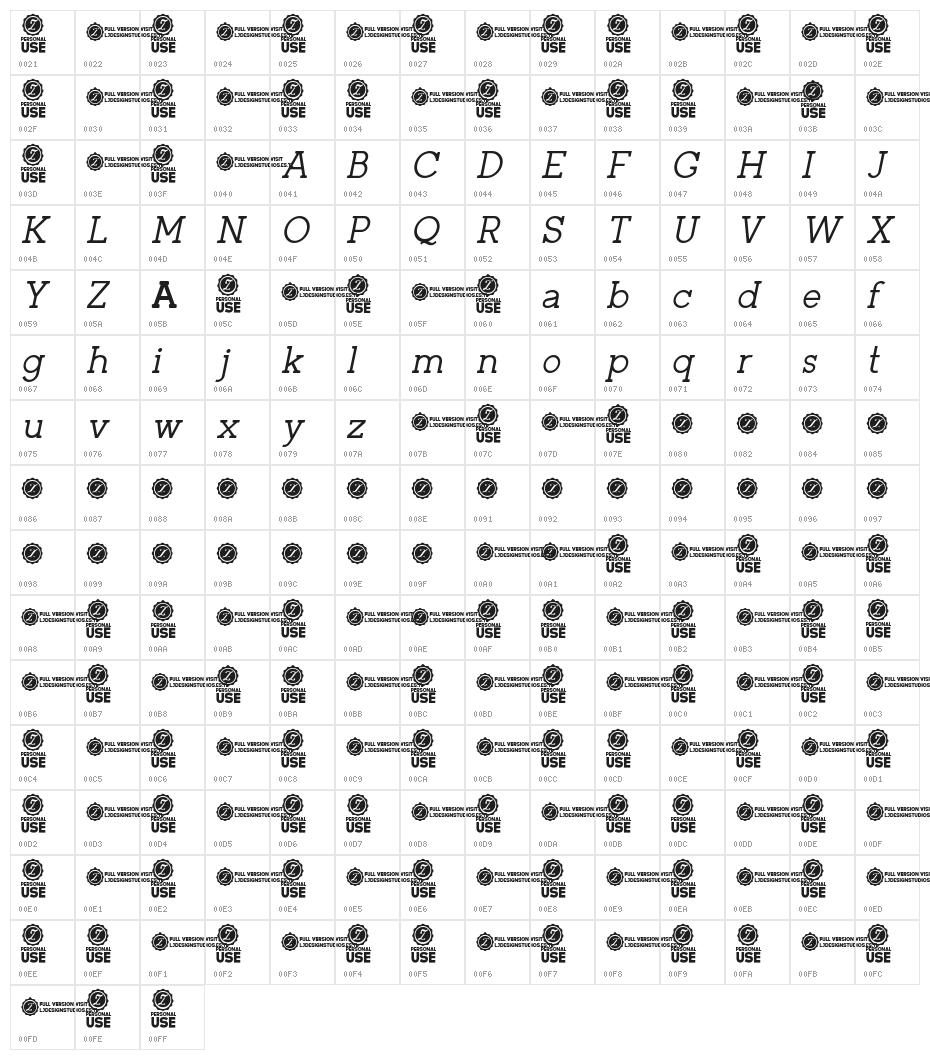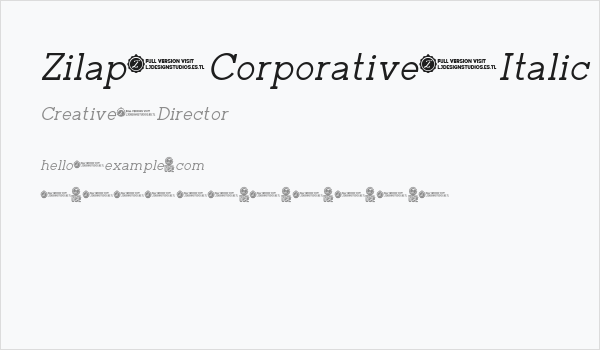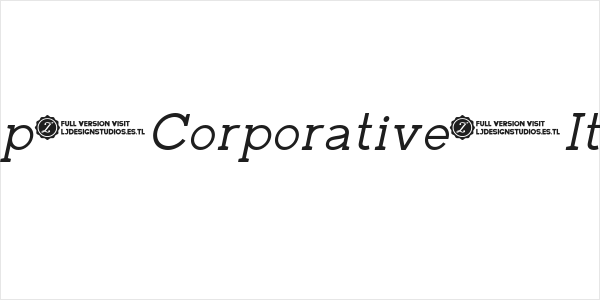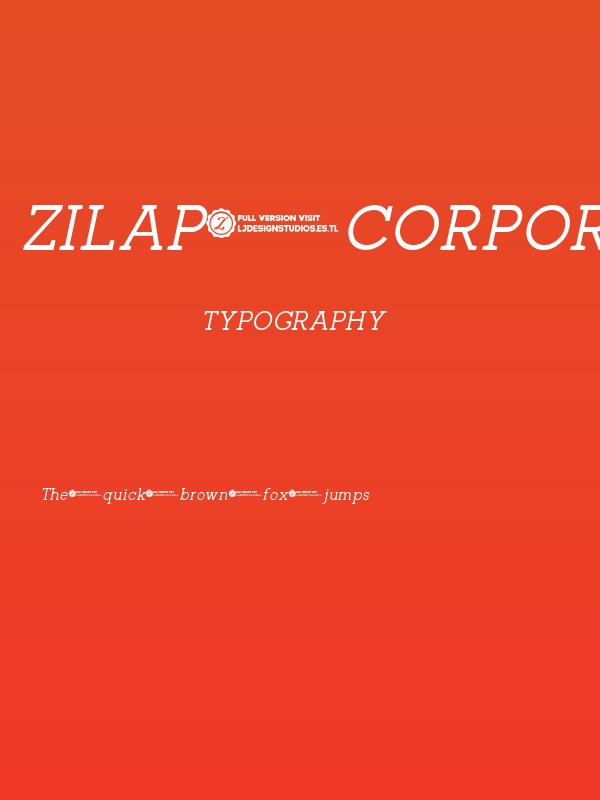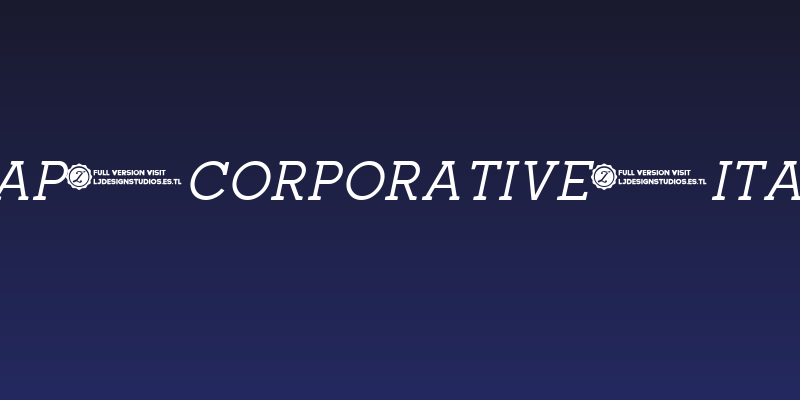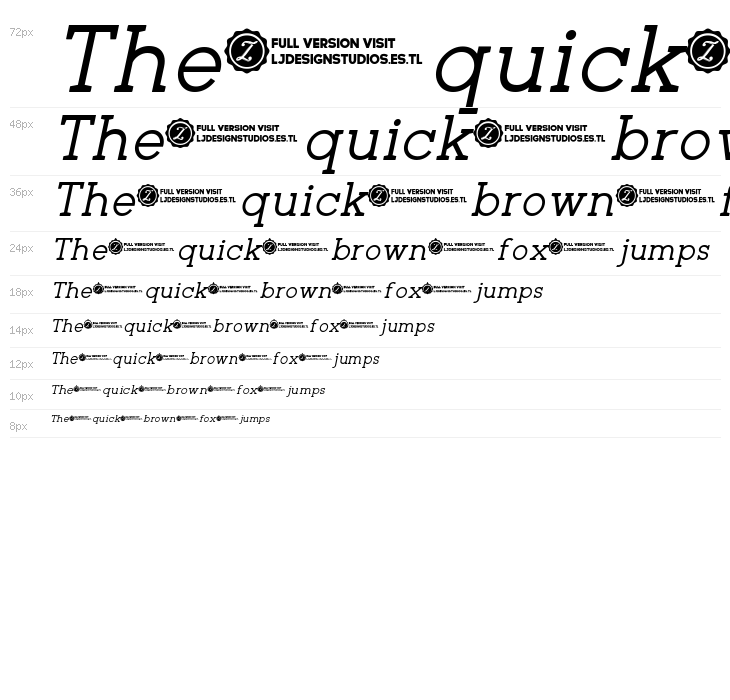
Zilap Corporative Italic Font
Zilap Corporative Italic Description
This font features a sleek and modern italic style, characterized by its elegant slant and smooth curves. The uppercase letters are bold and commanding, while the lowercase letters maintain a consistent flow with a slightly narrower form. The numerals are clear and distinct, making them easily readable. Special characters are designed with the same attention to detail, ensuring uniformity across the font. The overall appearance is professional and sophisticated, suitable for corporate and formal uses.
| Proposed Projects | Ideal for corporate branding, formal invitations, and editorial design. |